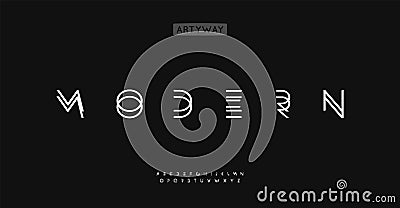
Wireframe geometric alphabet, angular overlay letters, modern layered font. Abstract futuristic typography for stylish #359684840
Wireframe geometric alphabet, angular overlay letters, modern layered font. Abstract futuristic typography for stylish branding logo, decorative edgy monogram, sparse modern headline. Vector typeset